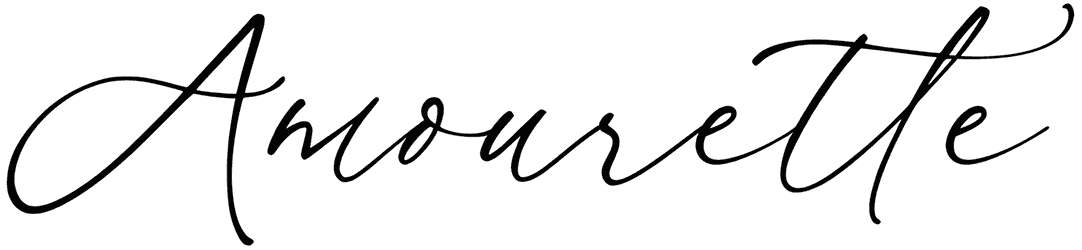
Amourette Font
Let us know if it takes more than a single look to relate to Amourette. It’s almost impossible not to be pleased with its gentle flow of handwritten letters. So why bother looking for some other feminine font when Amourette can handle your letters, book introductions, and postcards so perfectly well?
As you can see, it really helps the readability of a cursive font when it’s spaced so widely, giving you enough opportunities to see what’s going on despite the united letters.